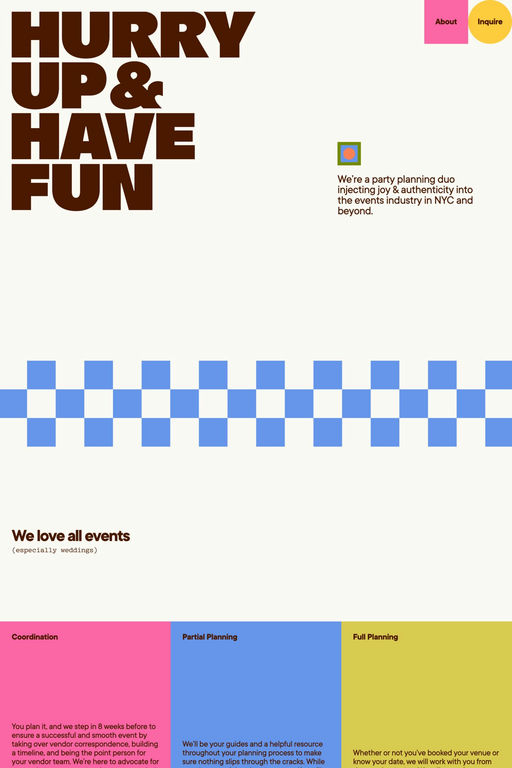
MVB Fantabular is a display typeface from MVB Fonts.
MVB Fantabular proves that monospaced faces needn’t be formal or bland. Inspired by the letterforms of older typewriters, Akemi Aoki designed a playful family of three weights with italics. With every character the same width MVB Fantabular works wherever a monospaced font is neededA sans serif version—MVB Fantabular Sans—is also available.